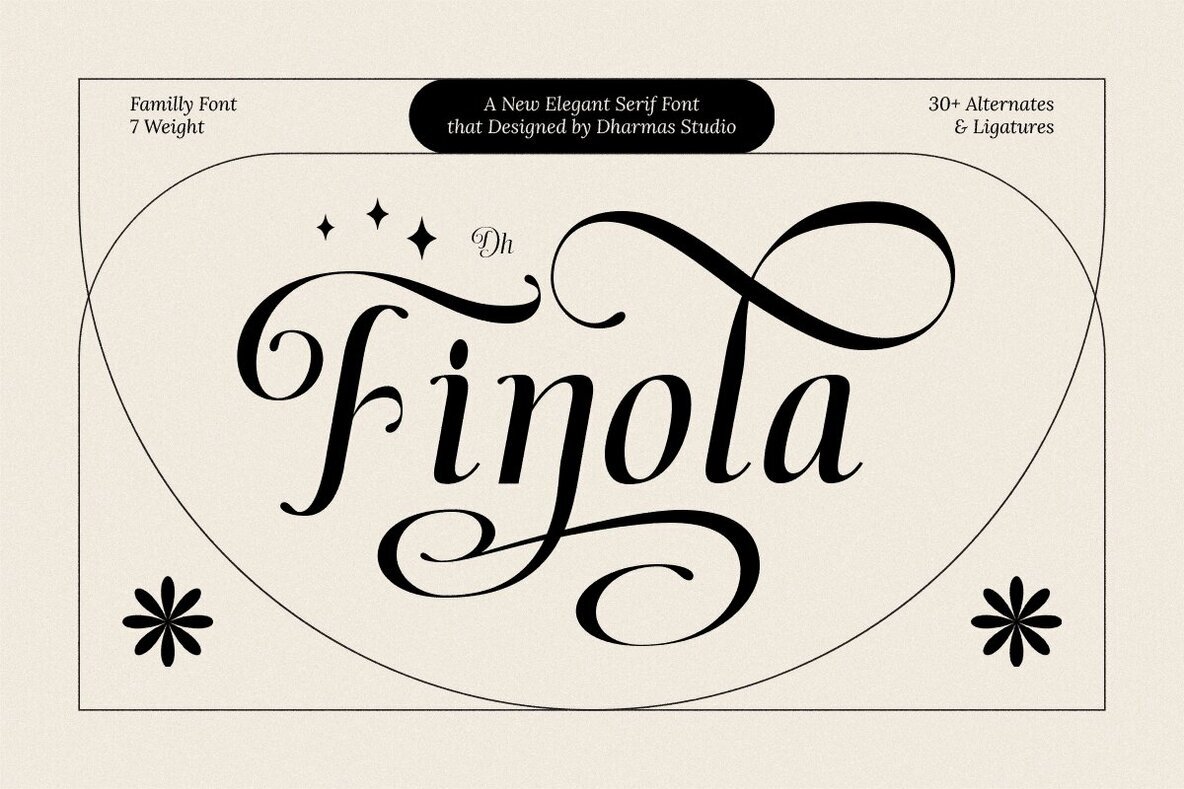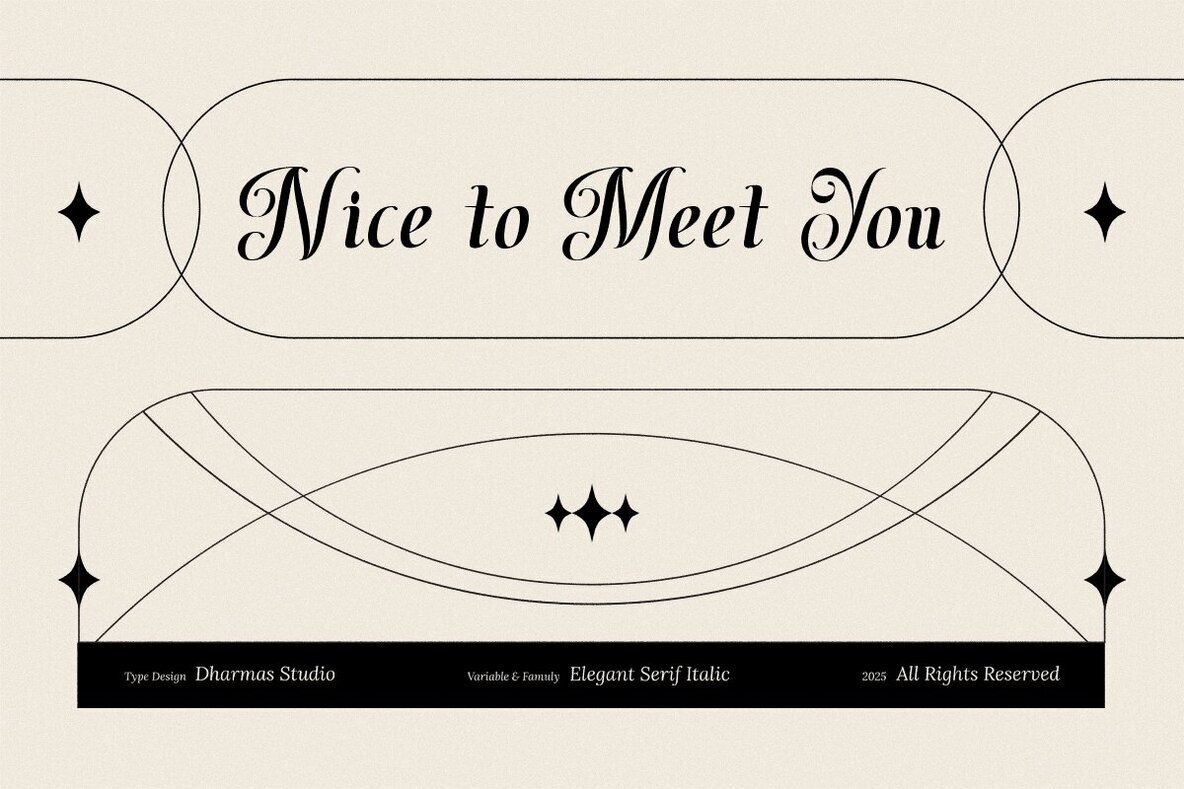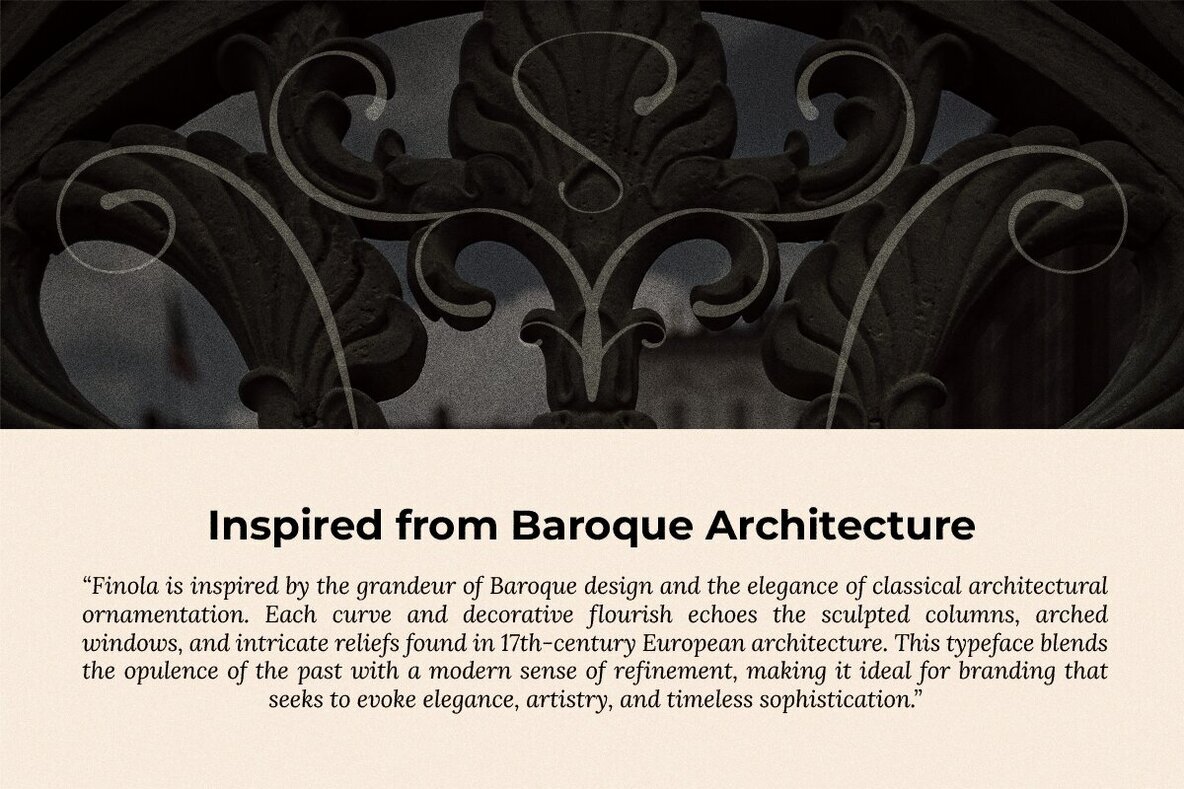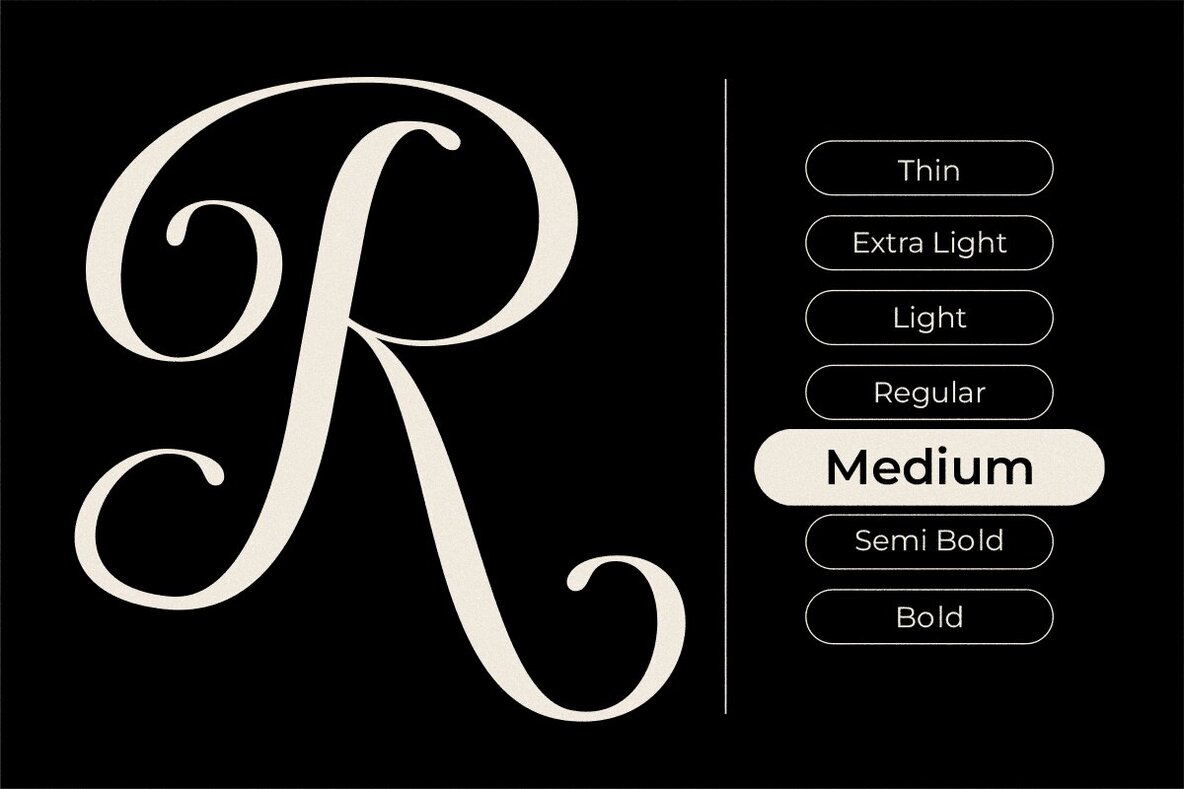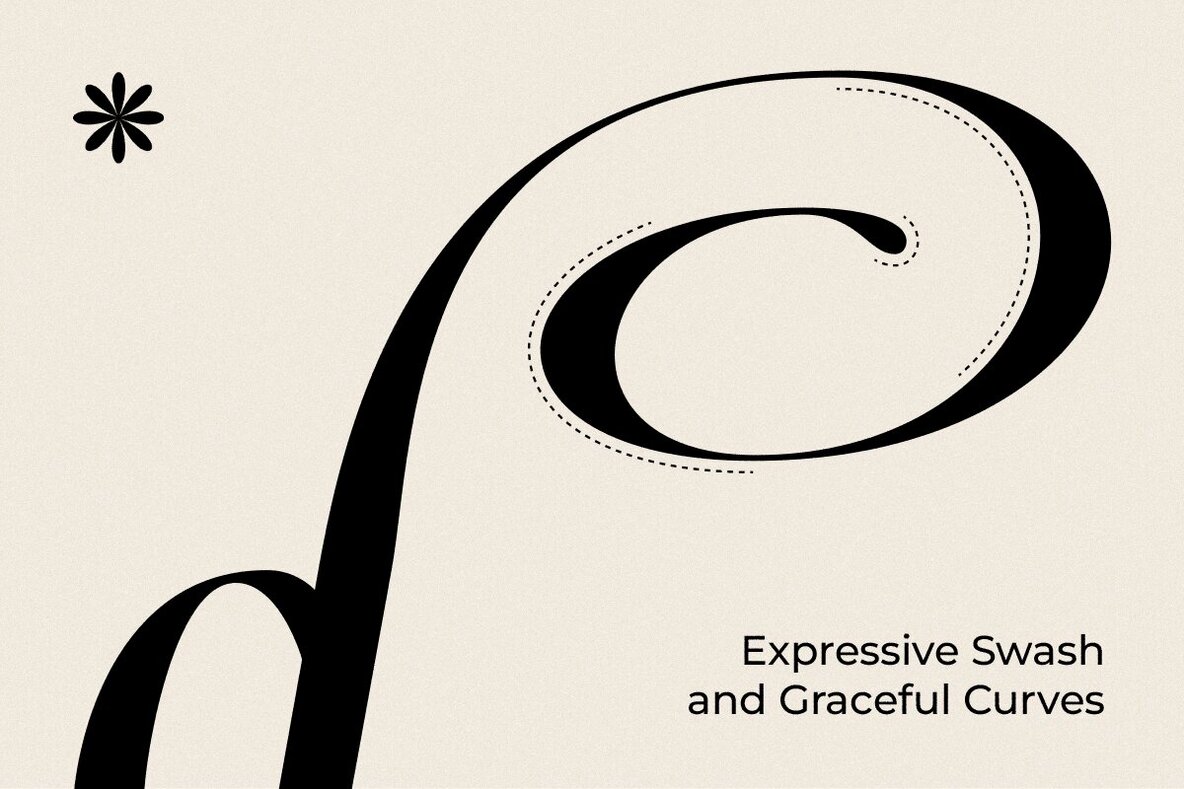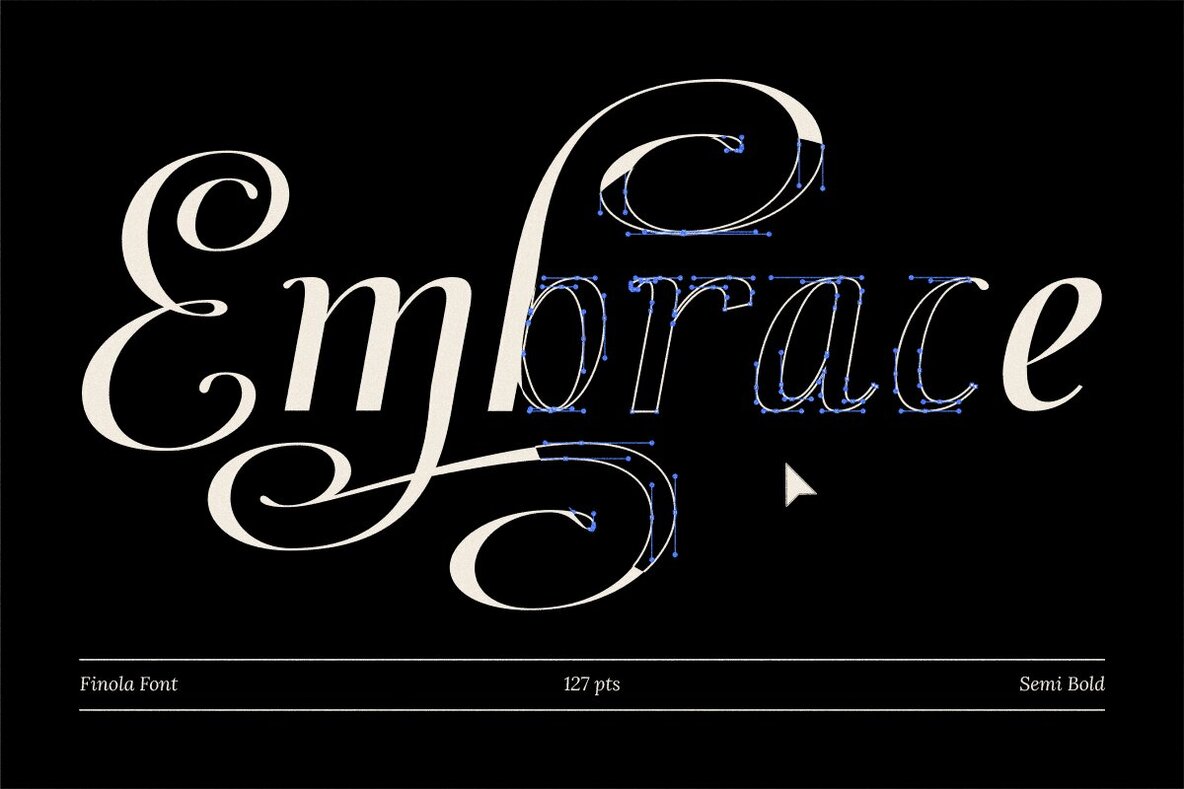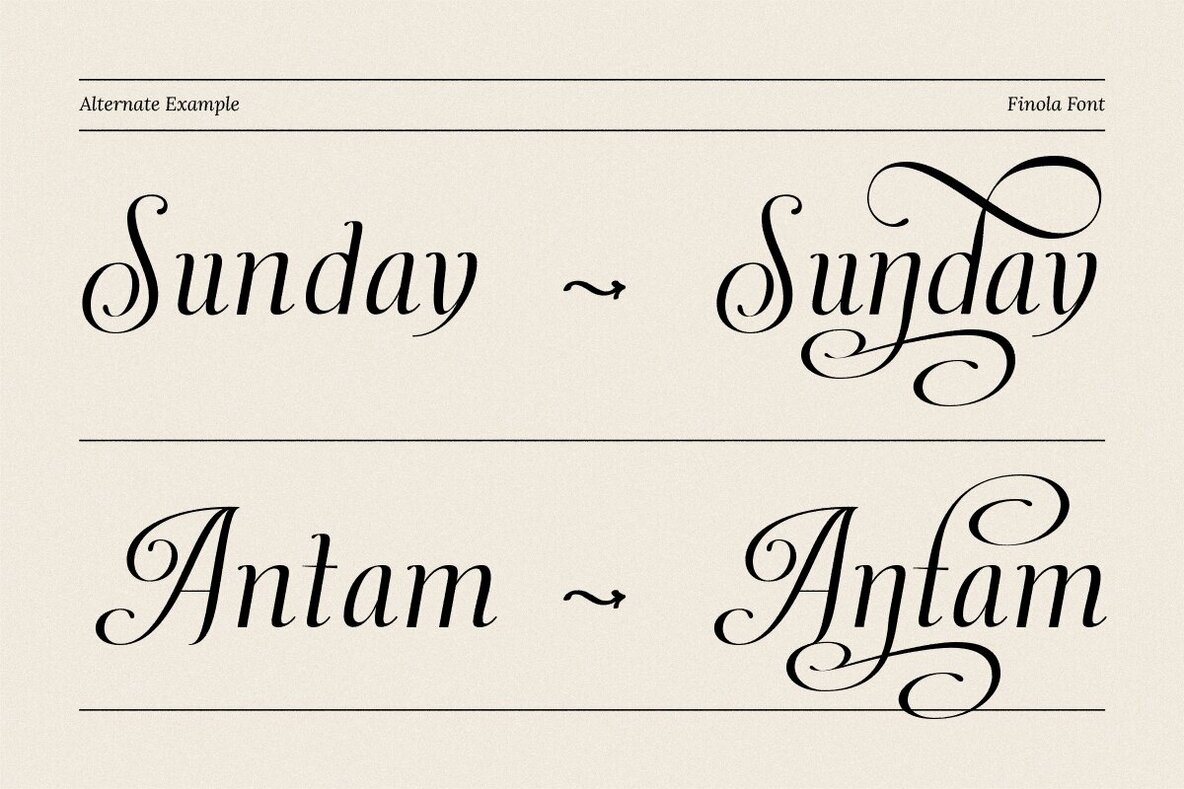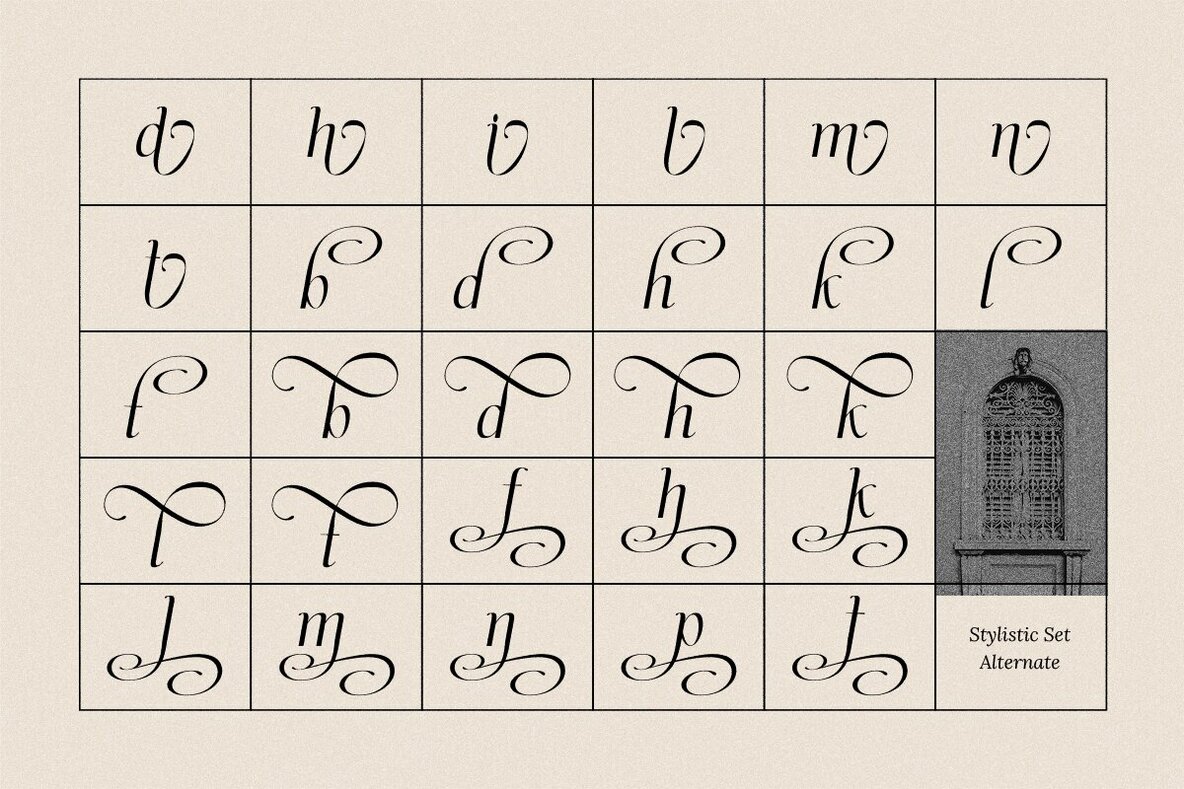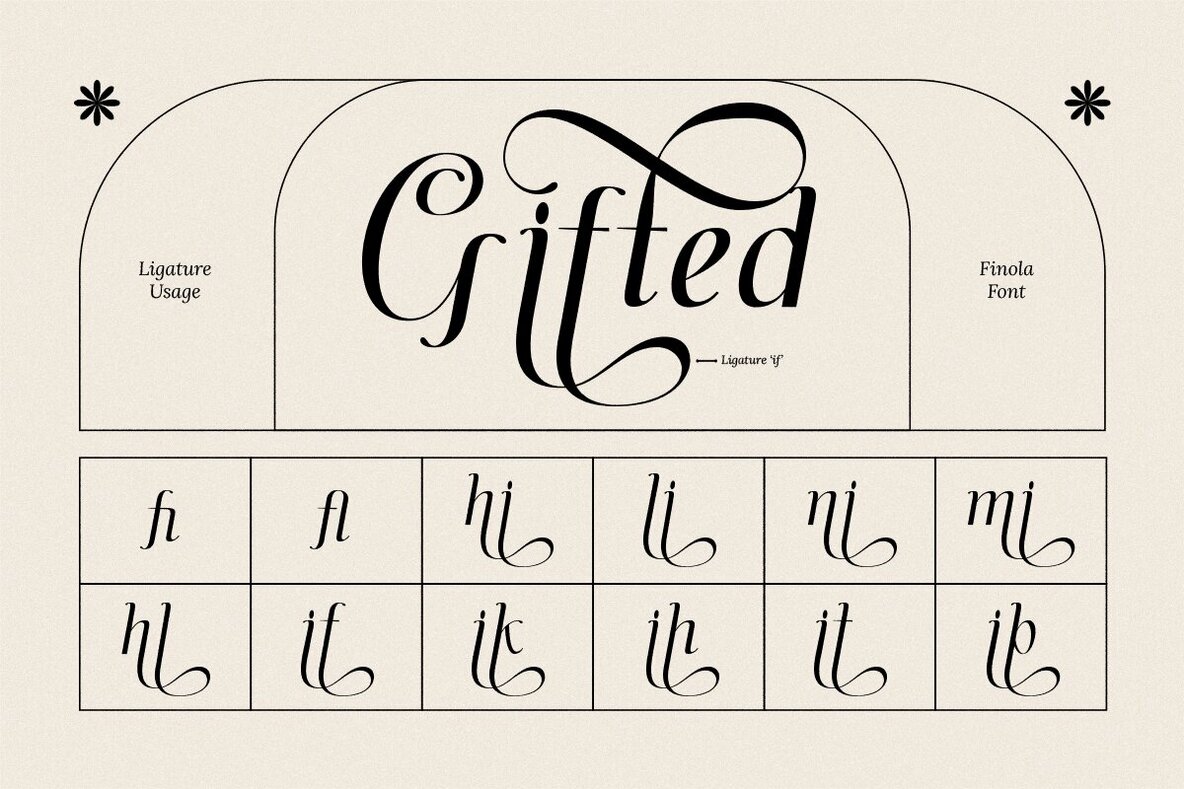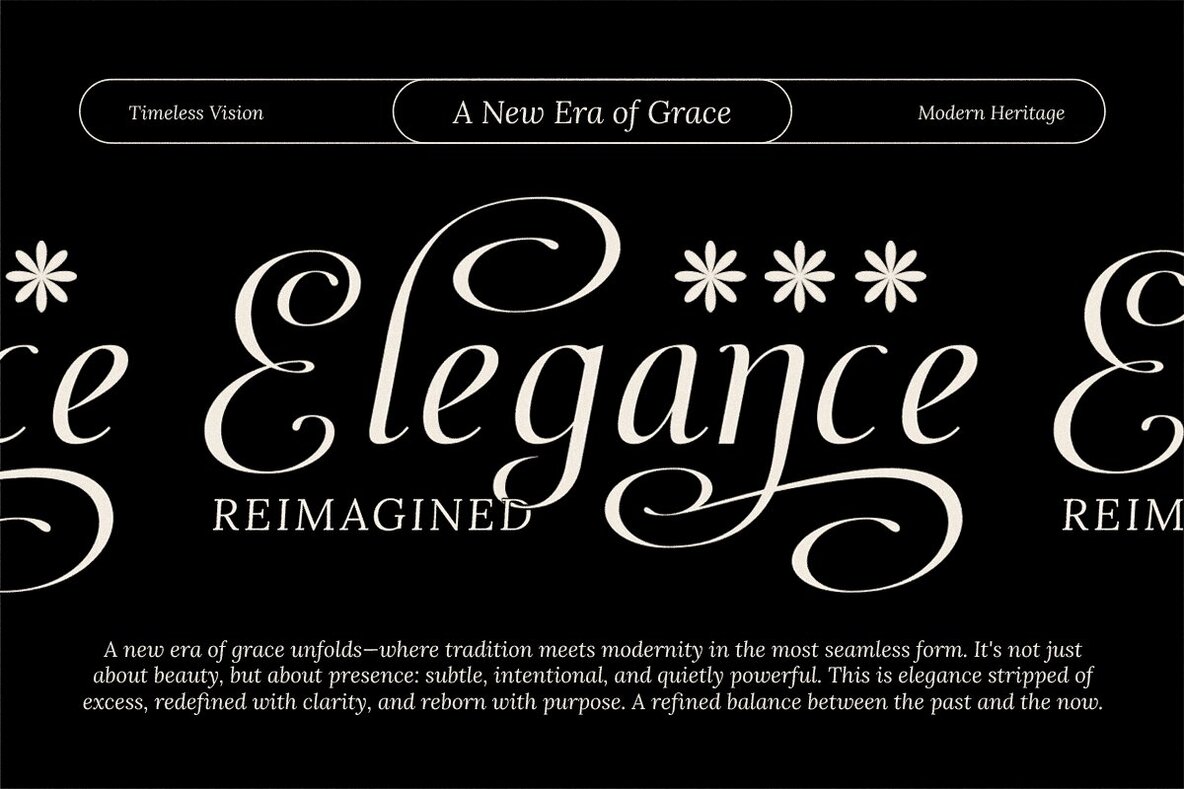
Dh Finola Font
Dh Finola is a luxurious serif font drawing inspiration from the intricate beauty of Baroque architecture and classical calligraphy. Its graceful swashes, striking high-contrast strokes, and flowing curves convey sophistication and artistic flair—perfect for wedding designs, romantic branding, editorial projects, fashion ventures, and high-end packaging. Available in seven exquisite styles—Thin, Extra Light, Light, Regular, Medium, Semi Bold, and Bold—Dh Finola empowers designers with complete control over tone and visual impact. The Dh Finola's unique ligatures and extensive stylistic alternates allow for unforgettable compositions, whether for invitations or logo designs. Its timeless, ornamental touch intertwined with a modern sensibility makes it a prized asset for any creative project.Dh Finola